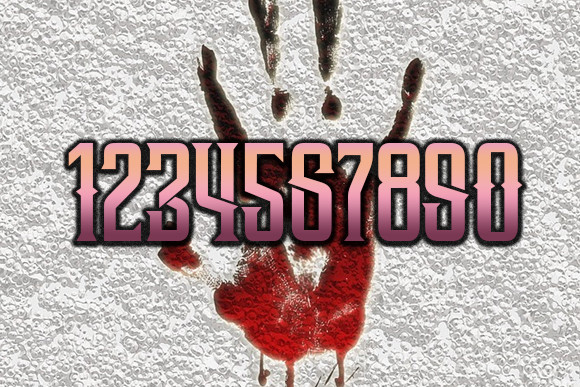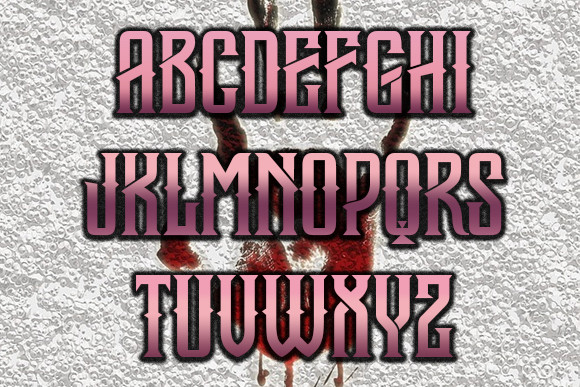
Dirty Crown Font
About Dirty Crown Font
Dirty Crown is an awesome gothic black letter typeface that will fit any of your creative designs. Use this font on t-shirts, bold projects, and banners.